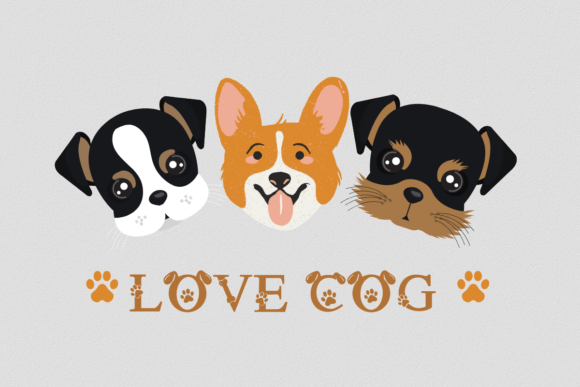
Cute Dog Font
Cute Dog is a playful and heartwarming decorative font designed especially for pet lovers and kid-friendly projects.
Featuring charming dog-themed elements like bones, paws, and floppy ears integrated into each letter, this font brings an instant smile to any design.
Perfect for birthday invitations, pet shop branding, greeting cards, and children’s apparel, Cute Dog is a fun way to add personality and warmth to your creative work.